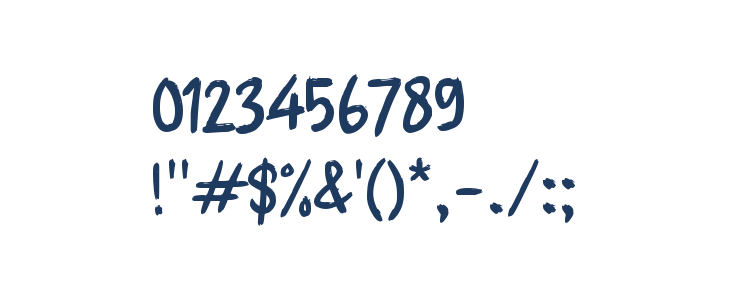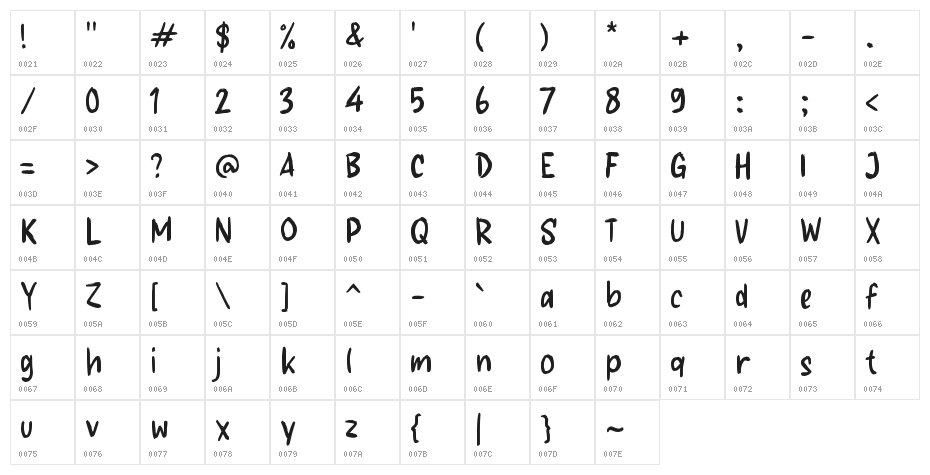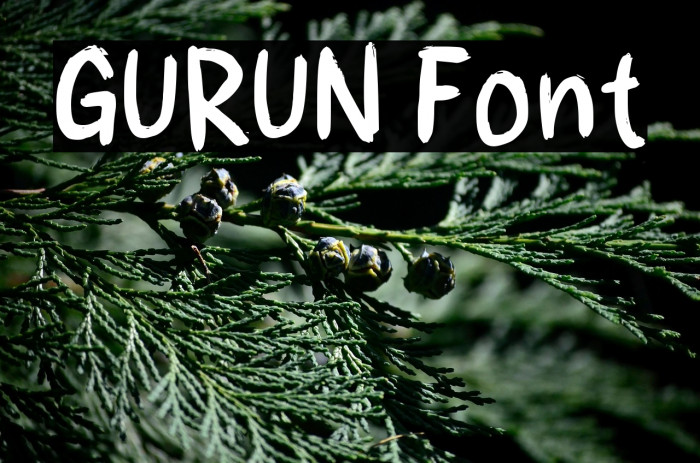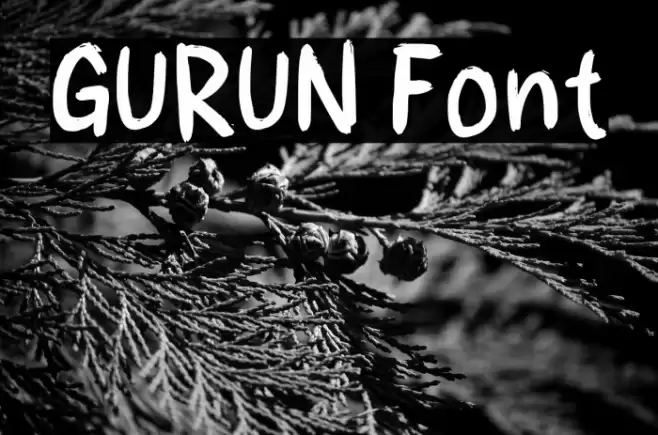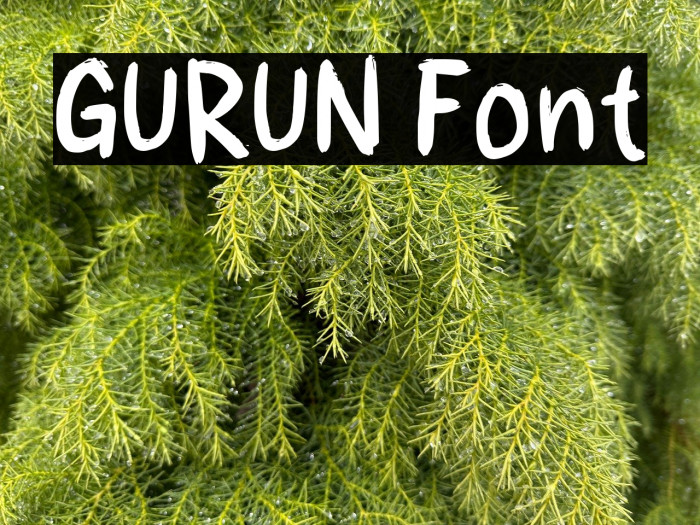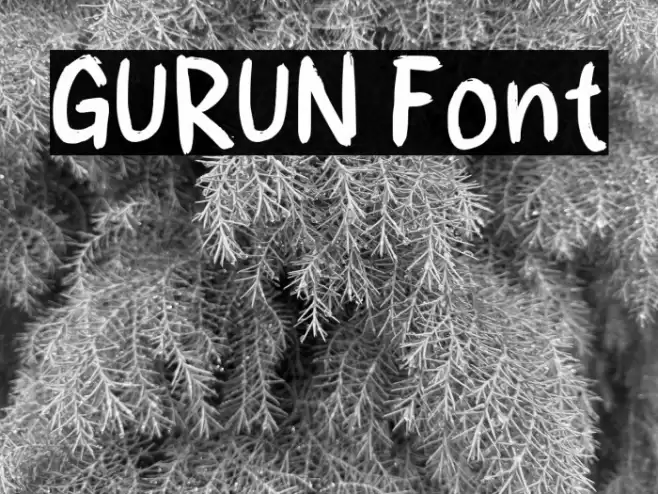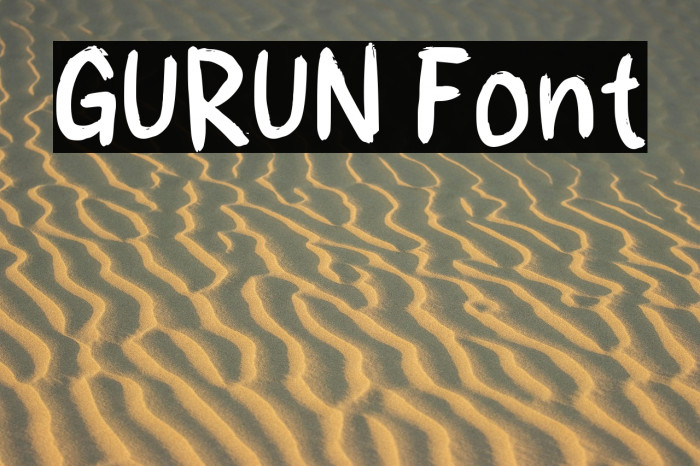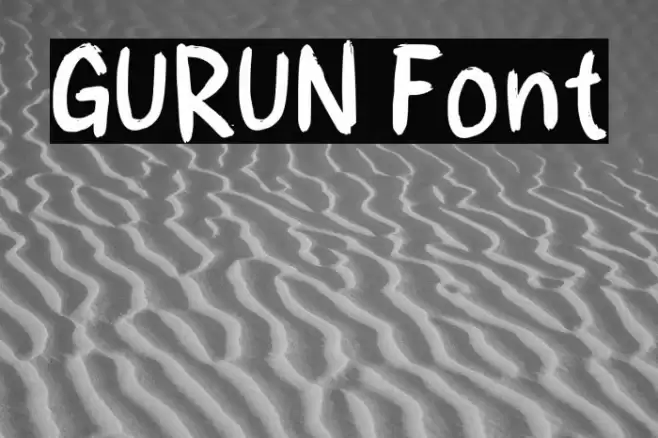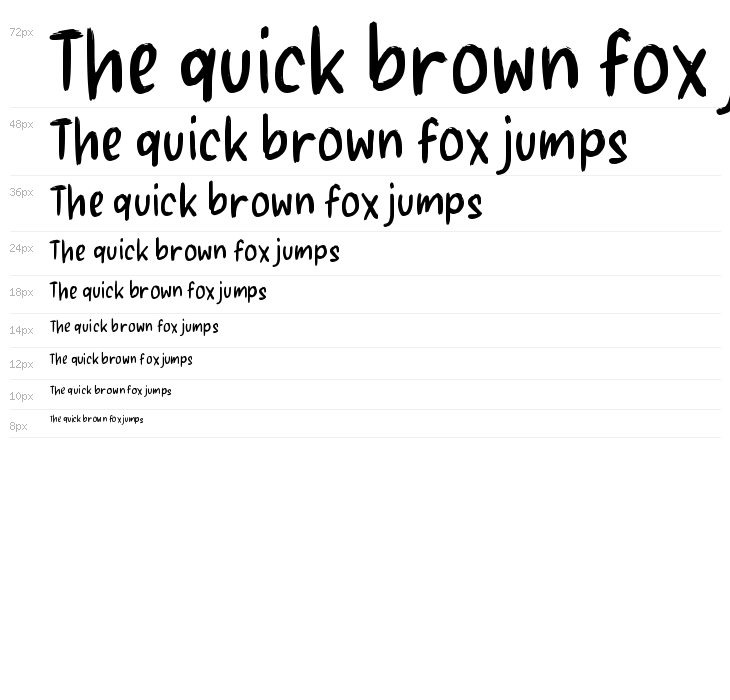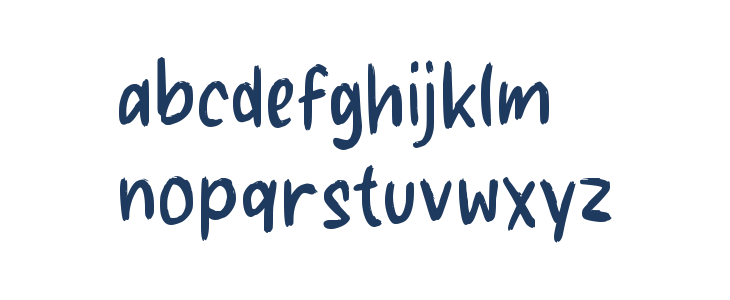
GURUN Font
GURUN Description
This font exhibits a bold, handwritten style with a casual and energetic appearance. The characters are slightly irregular, adding a personal and informal touch. The uppercase letters are robust and dynamic, while the lowercase letters maintain a consistent flow. Numbers are clear and legible, matching the overall playful aesthetic. Special characters are well-integrated, maintaining the font's cohesive style. The strokes are thick and expressive, giving a sense of movement and spontaneity.